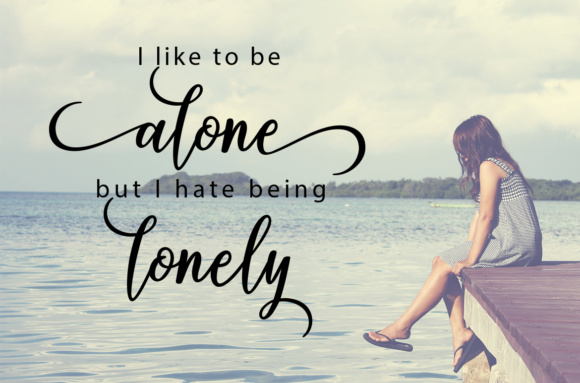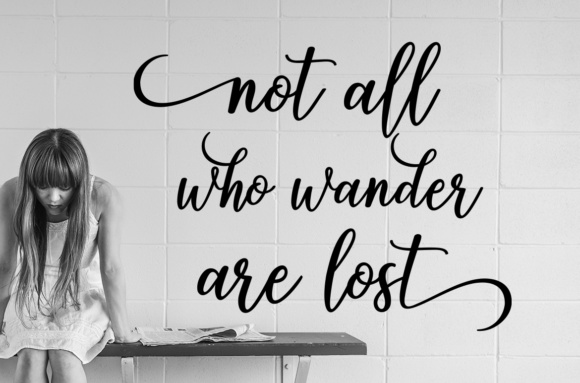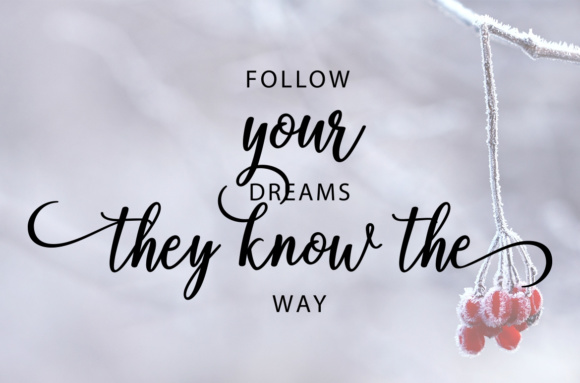
Introduction to Shelter Script Font
Have you ever been working on a creative project, pouring your heart and soul into it, only to realize that the right font is missing to bring it all together? That’s exactly what happened to me when I was designing a wedding invitation for a close friend. The Shelter Script Font was the missing piece I needed to give it that extra touch of elegance and sophistication.
As a designer, I know how crucial it is to have high-quality design resources like the Shelter Script Font at your disposal. With its modern calligraphy style and transparent background, it’s the perfect addition to any creative project that needs to look upscale and chic. And the best part? It’s available for free download, making it a valuable asset for designers of all levels.
Whether you’re working on a logo design, a branding project, or a simple graphic, the Shelter Script Font is sure to elevate your design to the next level. Its versatility and high quality make it a must-have for any design resource library.
Key Features of Shelter Script Font
- High-quality, elegant script font suitable for various creative projects, such as invitations, logos, and signage.
- Comes with a transparent background, allowing for seamless integration with any design or image.
- Unique, handwritten style with a personal touch, perfect for adding a creative twist to any design project.
- Designed to work well in both digital and print media, making it a versatile design resource.
Honest Review: Shelter Script Font
As a designer, I’m always on the lookout for high-quality design resources to elevate my creative projects. Recently, I had the chance to try out the Shelter Script Font, and I’m excited to share my honest review.
- The Shelter Script Font is incredibly versatile, making it perfect for a wide range of design projects.
- The font is incredibly legible, even at small font sizes, which is a must for any design resource.
- The font includes a transparent background option, making it easy to overlay on any image or background.
- The font is only available in a single style, which may limit its use in certain design projects.
Overall, I’m impressed with the Shelter Script Font, and I think it’s a great addition to any designer’s toolkit. While it may have some limitations, its versatility, legibility, and free download make it a valuable resource for any creative project.
Use the Shelter Script Font on a transparent background to create a high-quality design. Experiment with different font sizes and styles to add visual interest to your creative project. Combine the font with other design elements, such as images and shapes, to create a unique design resource.
Common Use Cases for Shelter Script Font
The Shelter Script Font is ideal for designing wedding invitations, baby shower invitations, and other special occasion graphics. It’s also great for creating quotes, posters, and social media graphics. With its high-quality design and versatility, the Shelter Script Font is a valuable addition to any design resource collection.
Is the Shelter Script Font suitable for high-quality printing?
The Shelter Script Font is designed to be highly legible and suitable for a wide range of applications, including high-quality printing. However, to ensure the best results, it’s recommended to use a high-quality font rendering engine and a high-resolution image or vector file. This will help to preserve the font’s clarity and detail when printed at a large size or high resolution.